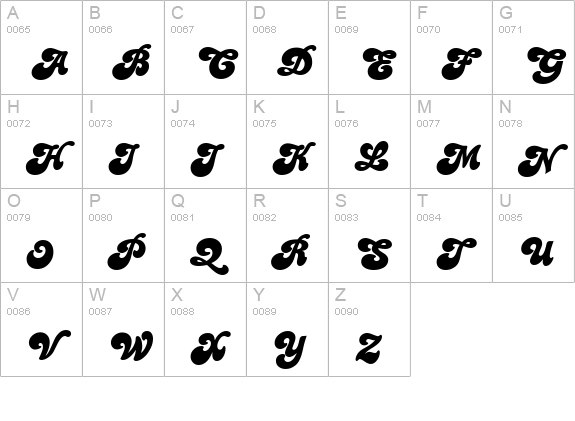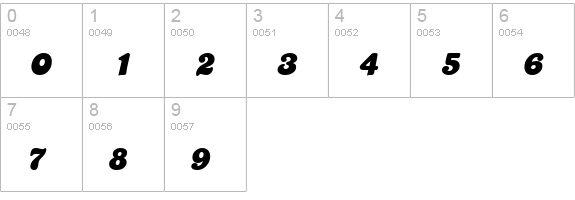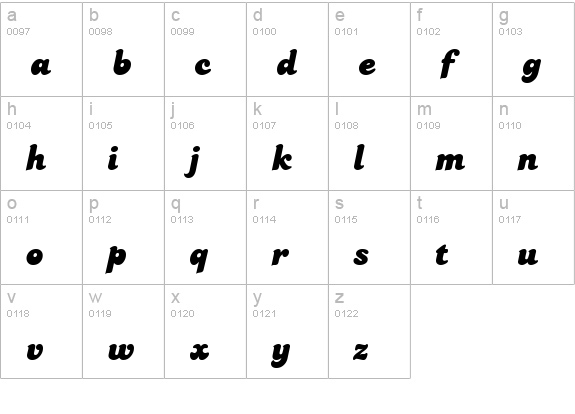
PT Banana Split Font Details
Introducing PT Banana Split font, a playful and whimsical typeface that is sure to add a touch of fun to your projects. With its charming handwritten style and unique character designs, PT Banana Split is perfect for creating eye-catching headlines, invitations, posters, and more. This delightful font is freely available to download at FontsMarket.com, allowing you to easily access and use it in your personal and commercial projects. Whether you're working on a design for a children's book, a party invitation, or a social media post, PT Banana Split font is a versatile choice that will bring a smile to your audience's faces. With its cheerful and energetic vibe, PT Banana Split font is a fantastic addition to any designer's toolkit. Add a touch of whimsy to your creations with this charming typeface today!